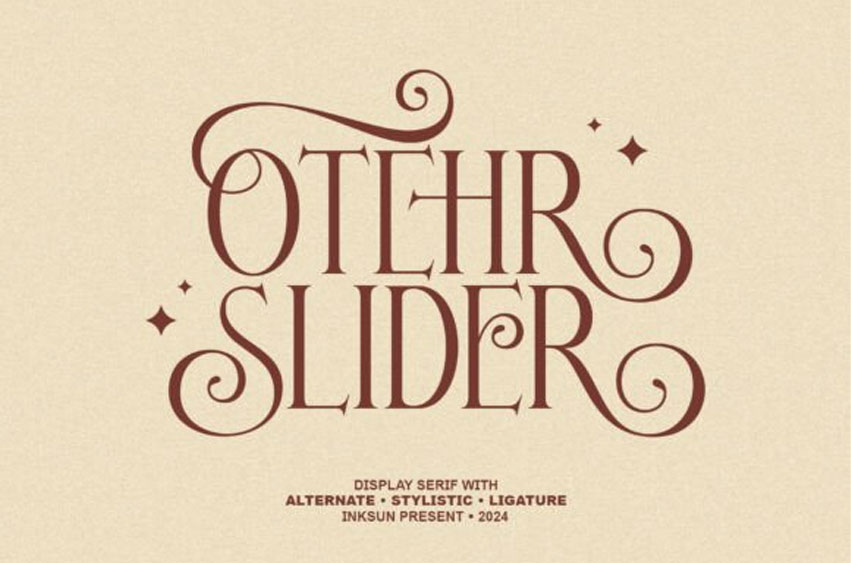
Other Slider Font
Other Slider Font is a captivating modern display serif font that seamlessly blends classic elegance with a whimsical, retro-inspired flair. Characterized by its high-contrast strokes and sophisticated curves, this typeface stands out with its elaborate swashes and fluid ligatures that give it a rhythmic, almost magical movement.
A unique feature of this font is the integration of star-shaped decorative accents, which add a “sparkling” and dreamy quality to the letterforms. Designed for high-impact visual projects, Other Slider is perfect for luxury branding, editorial layouts, and creative packaging where a touch of vintage charm and modern sophistication is required.